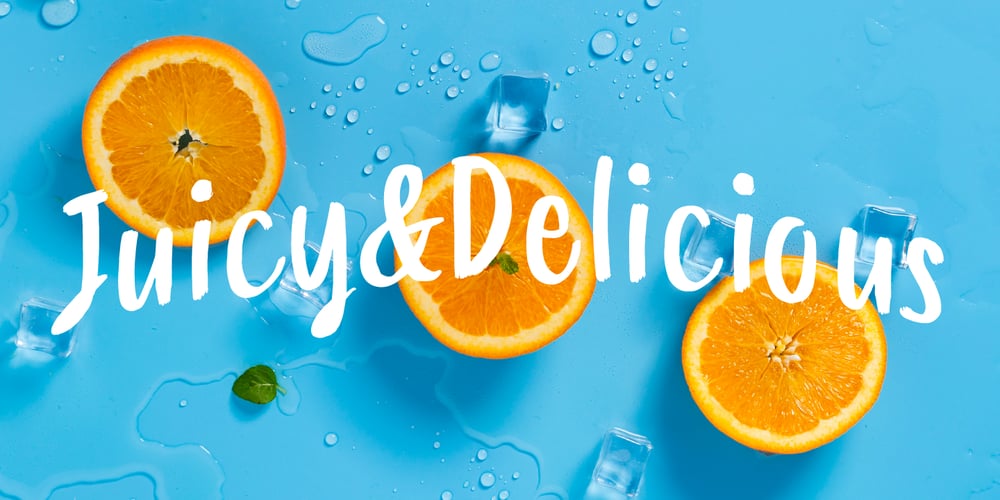
SmoothyPro
SmoothyPro font
SmoothyPro Font Family was designed by Giuseppe Salerno, Paco González and published by Resistenza. SmoothyPro contains 4 styles and family package options. Smoothy Pro, is a new version of Smoothy, our brushy textured font launched last summer. This summer we propose a smoother version without textures and also a light and slanted version